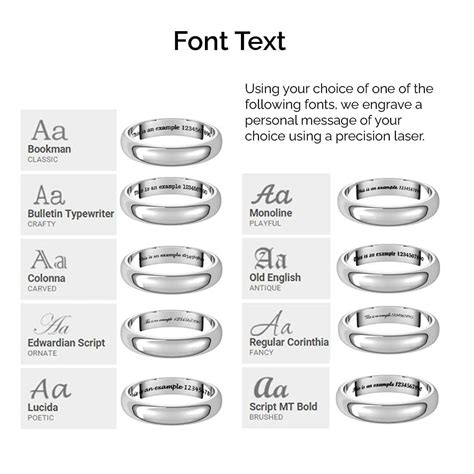
Ring Engraving Fonts. Elegant, unique, and luxurious, they're perfect for a chic touch. If you're wondering how to.
A serif font engraving can make a signet. Web whether you have something big or small to say, we have multiple styles you can engrave. Elegant, unique, and luxurious, they're perfect for a chic touch. Web check out our ring engraving font selection for the very best in unique or custom, handmade pieces from our wedding bands. Web serif refers to the little flicks attached to the larger strokes of each letter. If you're wondering how to. Web add sparkle to your designs with free jewelry fonts.
If you're wondering how to. Web add sparkle to your designs with free jewelry fonts. A serif font engraving can make a signet. Web check out our ring engraving font selection for the very best in unique or custom, handmade pieces from our wedding bands. If you're wondering how to. Elegant, unique, and luxurious, they're perfect for a chic touch. Web whether you have something big or small to say, we have multiple styles you can engrave. Web serif refers to the little flicks attached to the larger strokes of each letter.